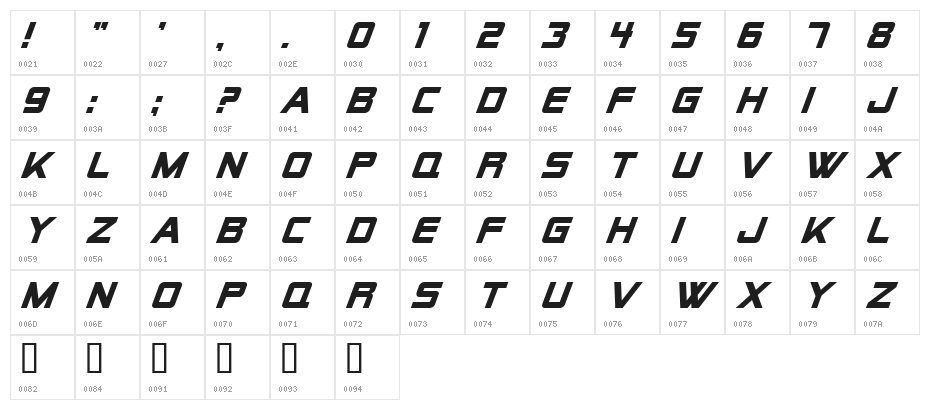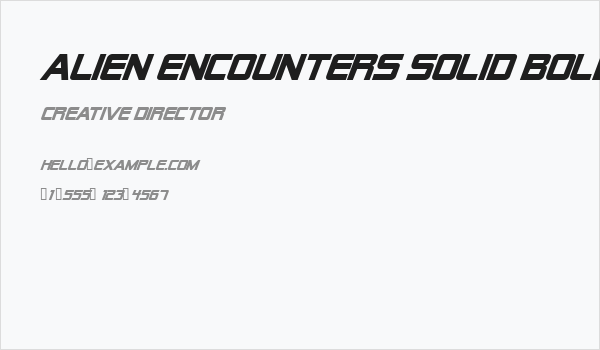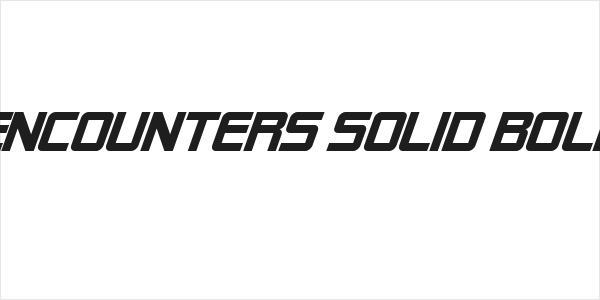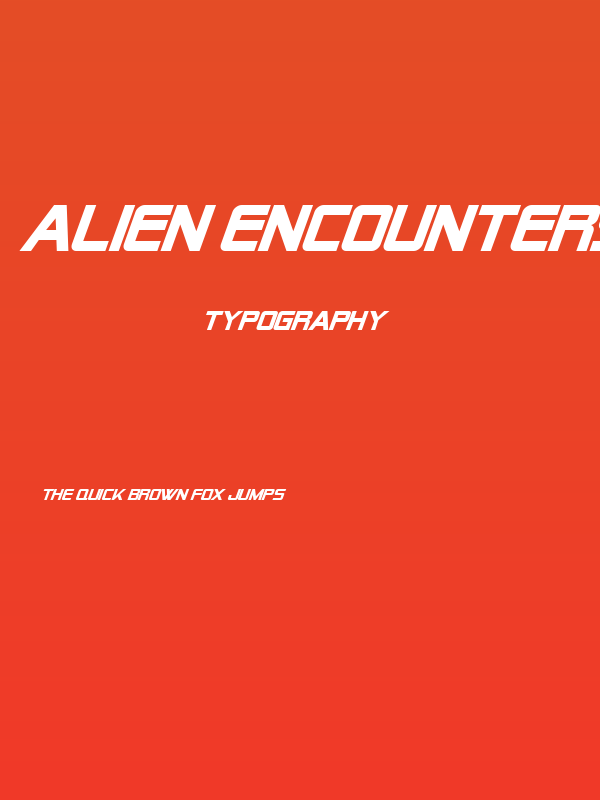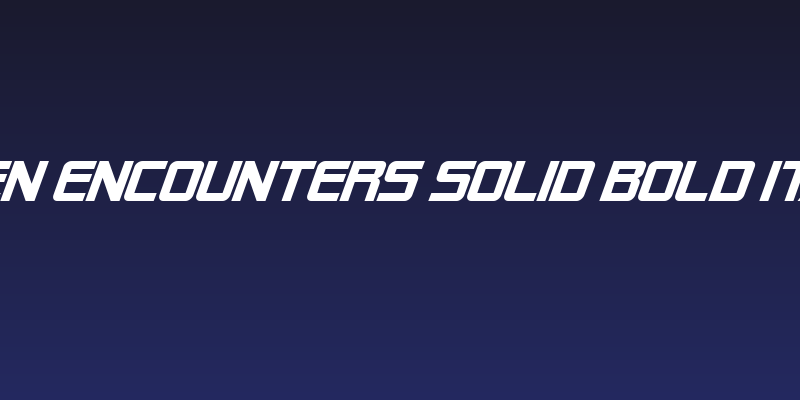
Alien Encounters Solid Bold Italic Font
Alien Encounters Solid Bold Italic Description
This font features a futuristic and bold design with a distinct italic slant, giving it a dynamic and forward-moving appearance. The characters are wide and have a strong presence, making them suitable for impactful headlines or titles. The strokes are consistent in thickness, providing a uniform look across all characters. The angular cuts and sharp edges contribute to its modern and sleek aesthetic, reminiscent of sci-fi themes. The numbers and special characters maintain the same bold and italicized style, ensuring cohesion throughout the font set.
| Proposed Projects | Ideal for sci-fi themed projects, technology branding, video game titles, and futuristic posters. |